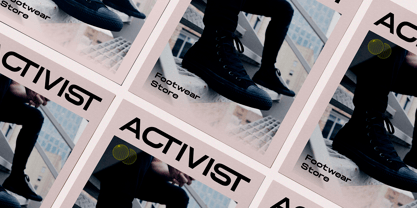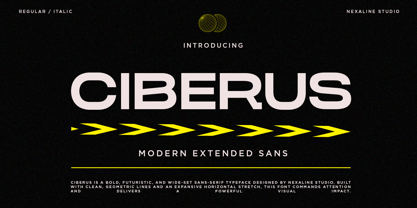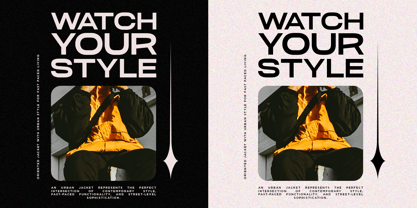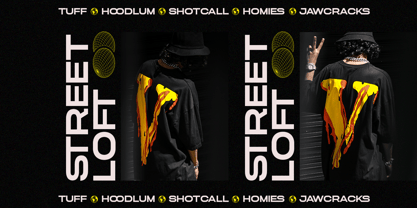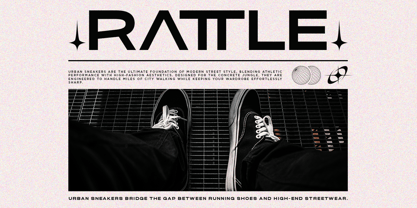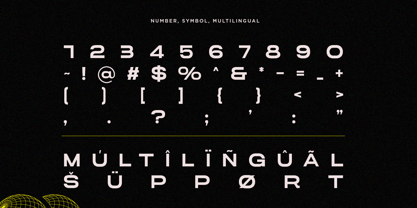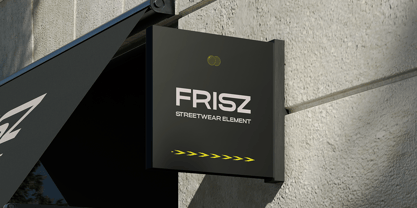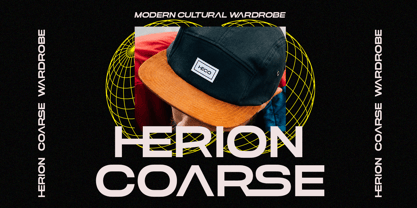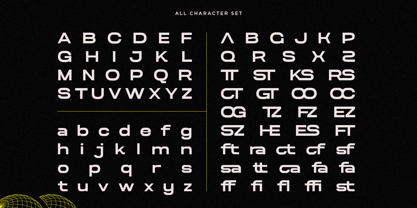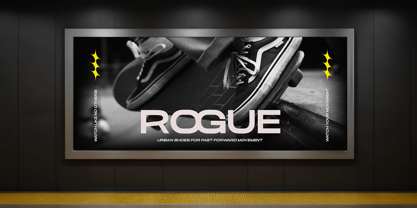
Ciberus
by Nexaline Type
Ciberus is a high-energy, wide-proportioned sans-serif typeface engineered for maximum visual dominance and futuristic appeal. Featuring ultra-wide letterforms, clean geometric lines, and a confident stance, this font expands spatial boundaries to deliver a powerful, high-tech aesthetic. Built for bold statements, it brings a cutting-edge, industrial feel to any modern design system.
Perfect for:
Futuristic & Tech Branding
Sports, Automotive & E-Sports Logos
High-Impact Posters & Event Flyers
Streetwear & Apparel Design
Sci-Fi Packaging & Game UI Design
Complete Character Set (A-Z, 0-9, Punctuation)
Clean vector outlines & sharp corner details
Multi-language support